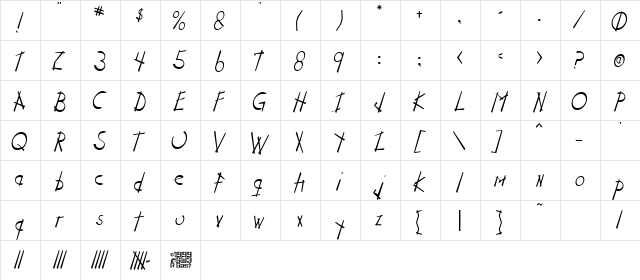
Stix n Stonz Regular
Design Context for Stix n Stonz Typeface
Stix n Stonz is a composed and adaptable typeface that performs quietly and consistently across a wide range of design contexts.
Pro Tip: Use Stix n Stonz in both headline and body roles to test its range before committing to a single application.